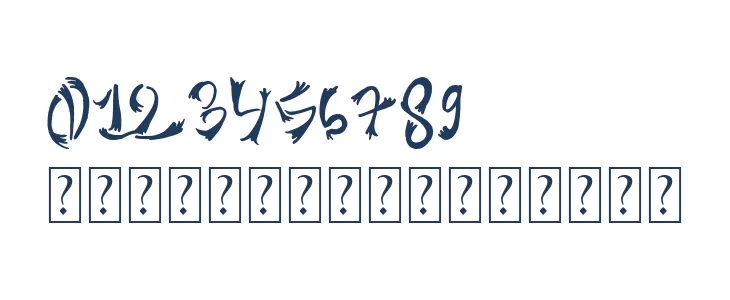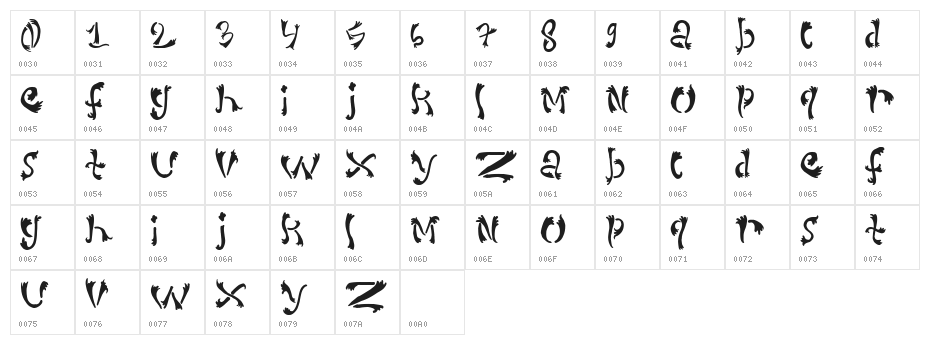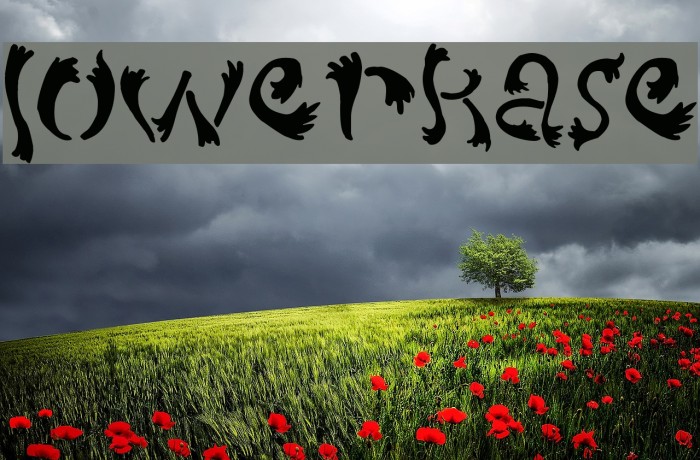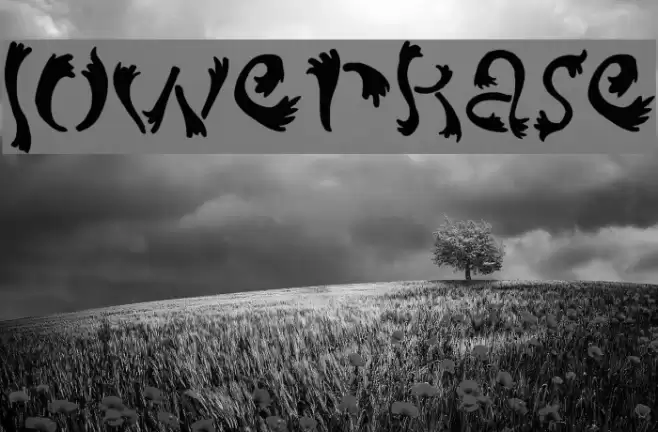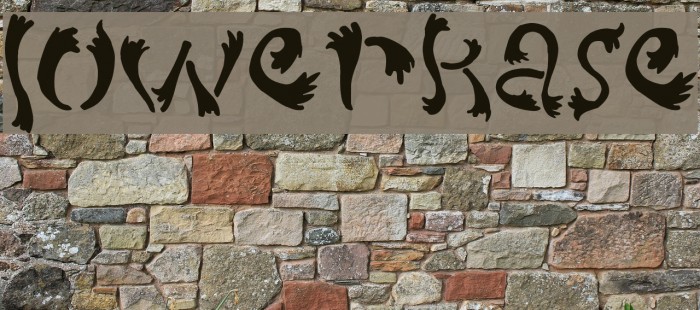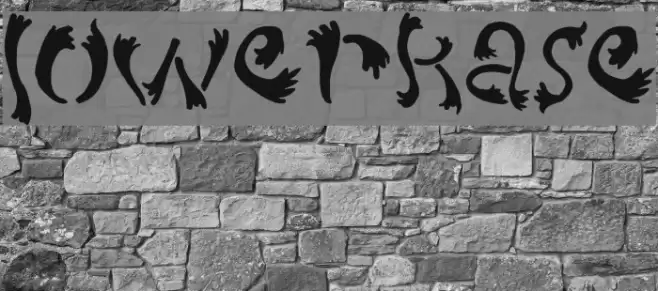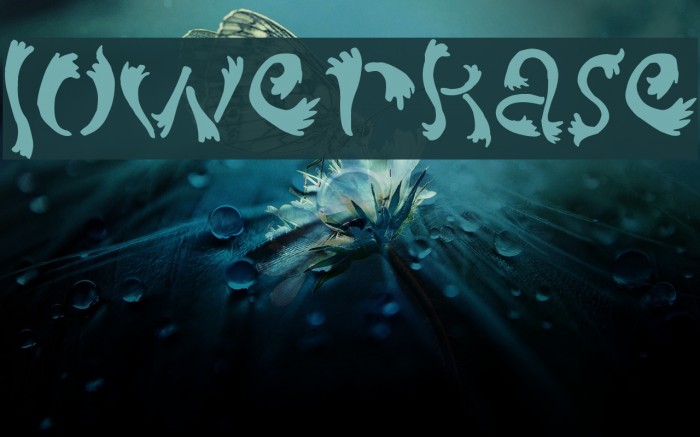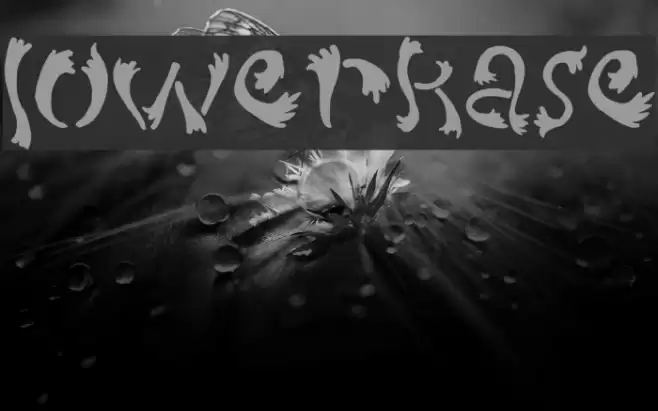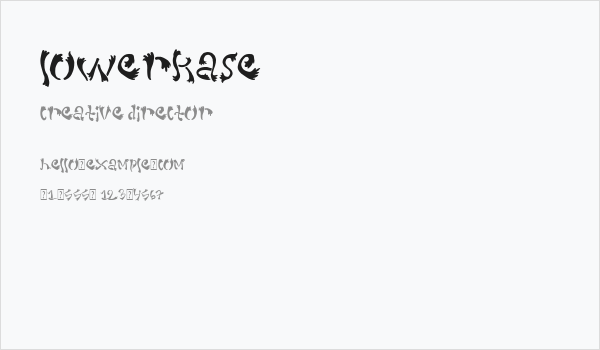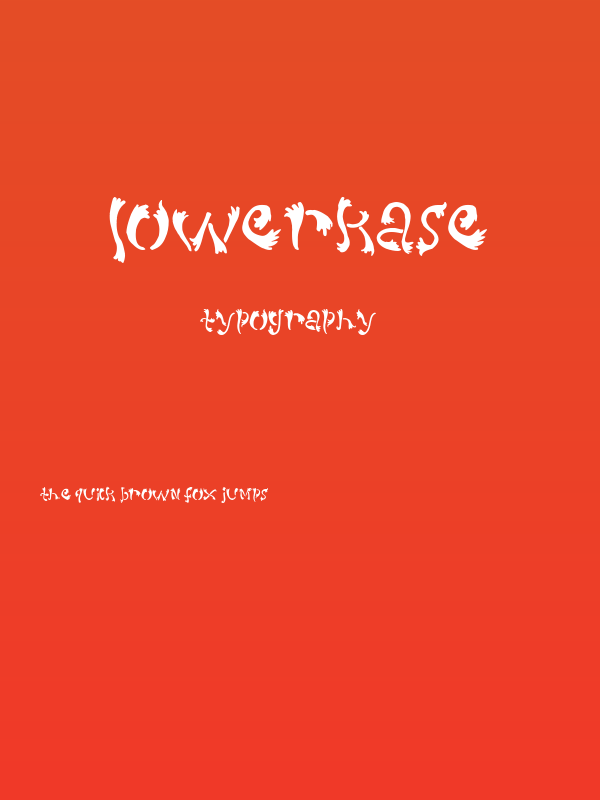
lowerkase Font
lowerkase Description
This font features a highly decorative and artistic style, characterized by its unique, organic shapes that resemble flowing feathers or leaves. Each letter is crafted with intricate details, creating a sense of movement and fluidity. The bold strokes and elaborate curves give it a dramatic and eye-catching appearance, making it ideal for creative and expressive design projects. The font maintains a consistent weight throughout, with a medium contrast between thick and thin strokes. Its whimsical and imaginative design makes it suitable for projects that require a touch of fantasy or artistic flair.
| Proposed Projects | Ideal for fantasy-themed posters, artistic book covers, creative branding, and decorative invitations. |